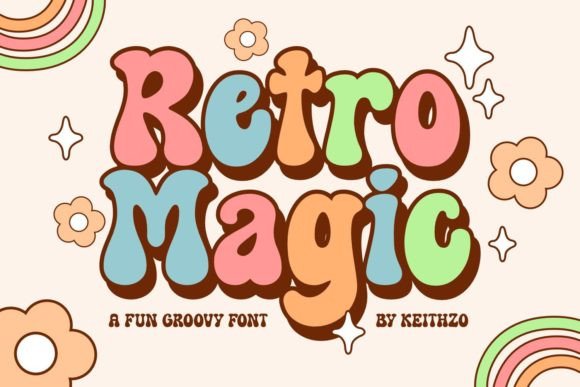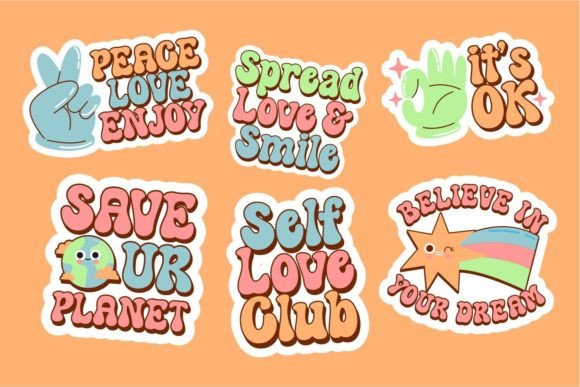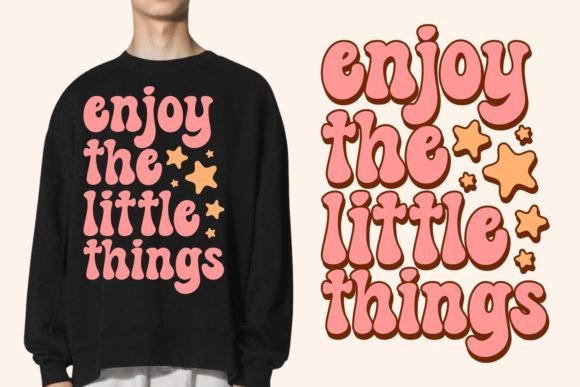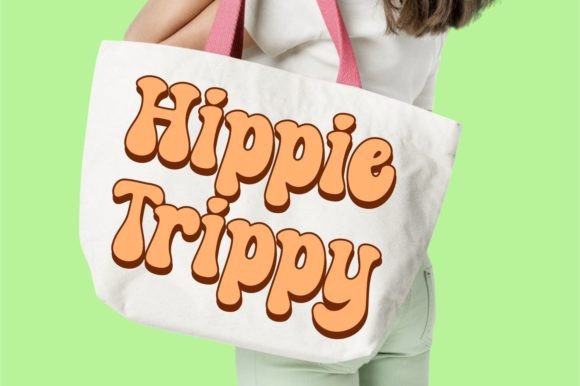
Retro Magic Font: Bold Vintage Serif for Headlines & Logos
About the Retro Magic Font
Welcome to the world of Retro Magic Font, a typeface that will inspire your next great project. Retro Magic is a versatile, stylish, and playful retro display font perfect for a wide spectrum of applications such as greeting cards, headlines, and many more! Add it to any of your creative projects, and it will give them a romantic and exquisite feel.
Retro Magic excels as a headline font for posters, branding projects aimed at a younger demographic, and packaging design for products with a vintage or playful aesthetic. Its charm also works well in short-form text for greeting cards or social media graphics. However, its decorative nature makes it unsuitable for body text or UI elements where readability is paramount; long blocks of text set in Retro Magic would be difficult to read.
For effective pairings, consider pairing Retro Magic with a clean sans-serif like Open Sans for body copy or a more geometric sans-serif such as Montserrat for a modern contrast. A classic serif like Garamond could offer a sophisticated counterpoint, while a handwritten script font could enhance its playful energy, depending on the desired overall tone.
The font’s core personality is playful and nostalgic, conveying a sense of fun and vintage charm. It is best suited for brands that want to project a youthful, friendly, and slightly retro image.
Retro Magic Font Usage Examples
Retro Magic Font Example